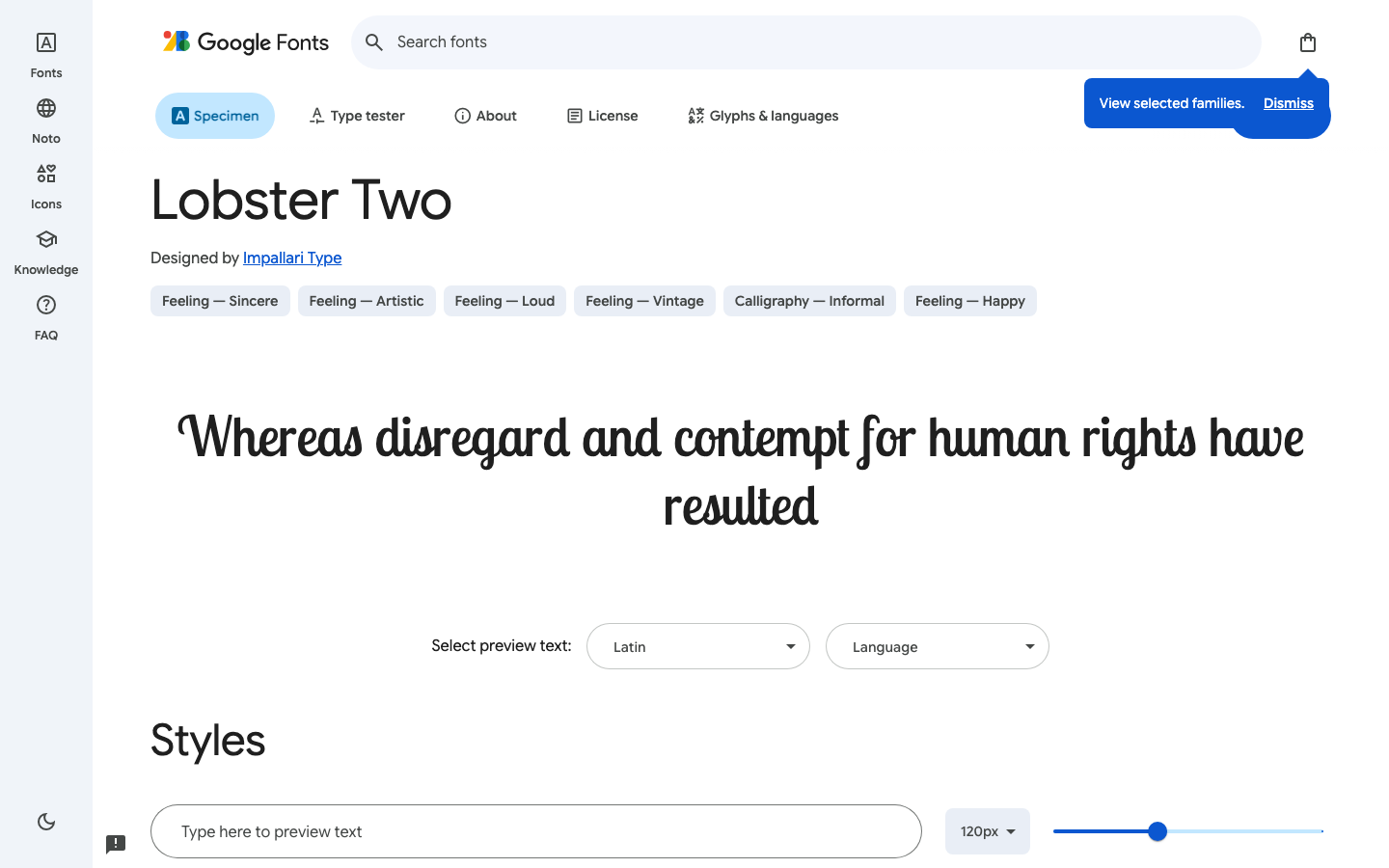
Brush Script vs Lobster Two
Brush Script and Lobster Two are both display typefaces sharing a script foundation. Compare which suits your Packaging project.
Brush Script
Script
Lobster Two
Script
| Feature | Brush Script | Lobster Two |
| Classification | display | display |
| Language Support | latin | latin |
| Source | Linotype | Impallari Type |
Recommended: Brush Script
- handwritten design character
- Suited for Casual and Retro
- From linotype
Consider: Lobster Two
- Suited for Logos and Branding
- From impallari-type